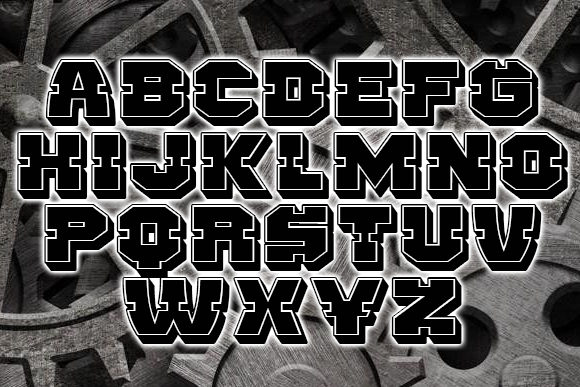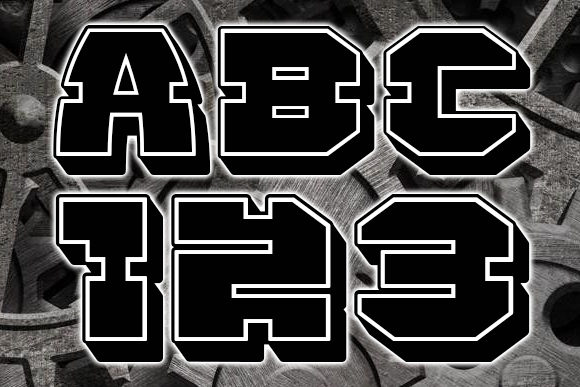
Introduction to Mechanica Font
Mechanica is a bold and authentic display font.
It celebrates abstract shapes in all their eclectic beauty Add this font to your favorite creative ideas and notice how it makes them come alive.
Key Features of Mechanica Font